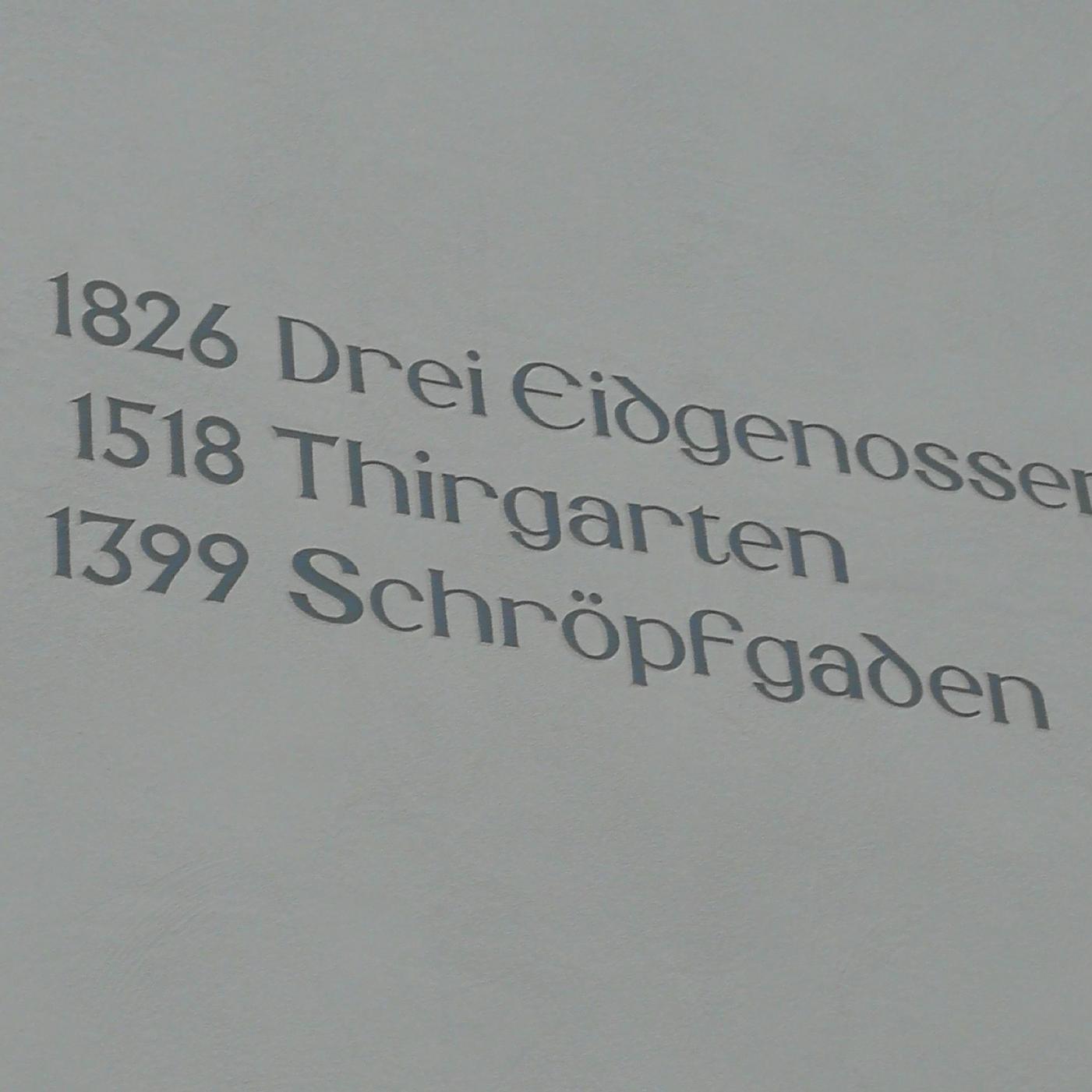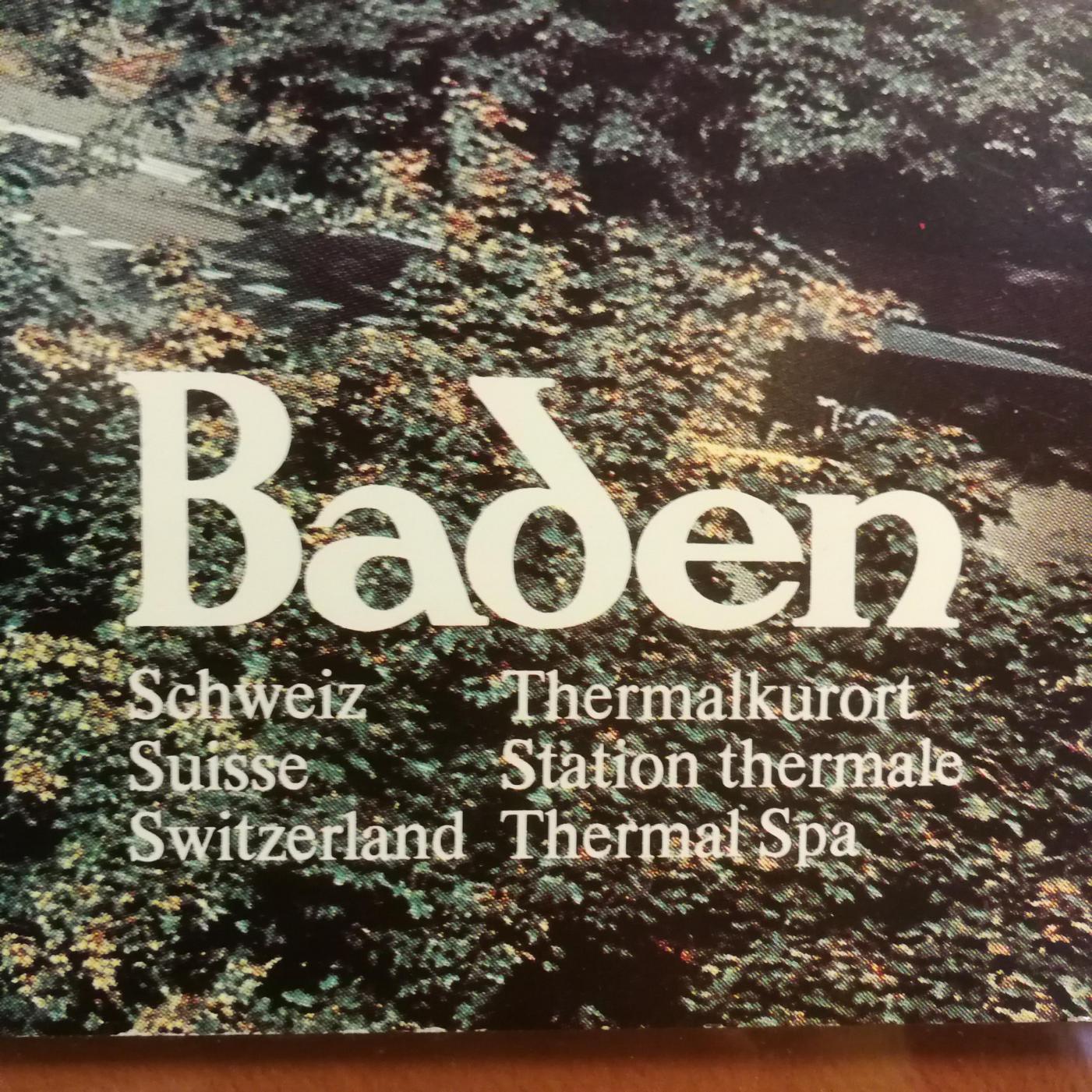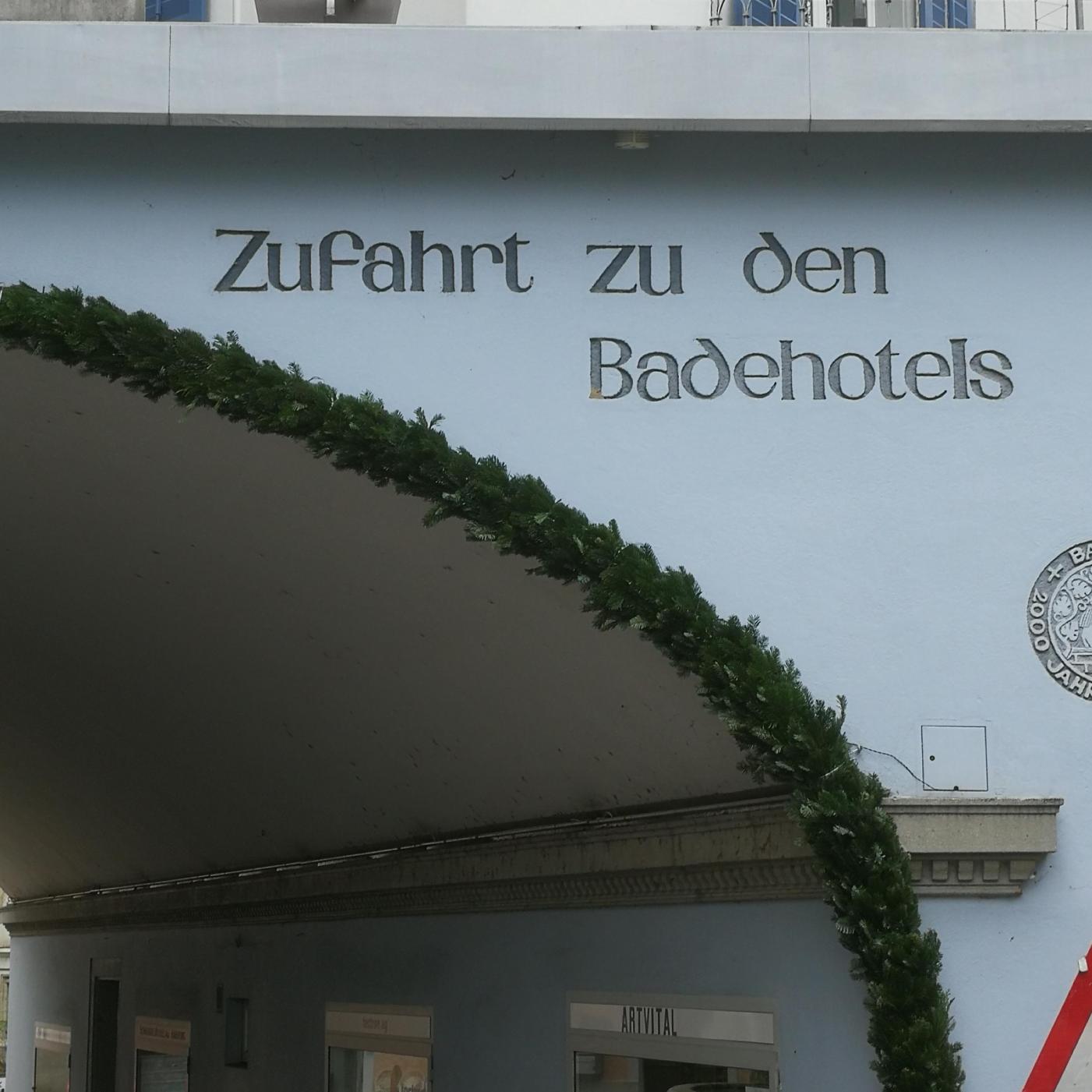
Help needed identifying typeface, possibly uncial version of Helvetica? (Baden, Switzerland)
Seen this font around a few places in Baden, Switzerland. It's leaning more towards Celtic and Uncial forms (especially the E and d), but also using elements from Helvetica.
The samples show two distinct typefaces. I couldn’t find a match for either one of them.
The first one could be architectural lettering, and the second a custom logo, thus not fonts.
also using elements from Helvetica
I don’t see much Helvetica in your samples. That said, it has been used as a basis for “Celtic style” typefaces in the past, with pretty different results: